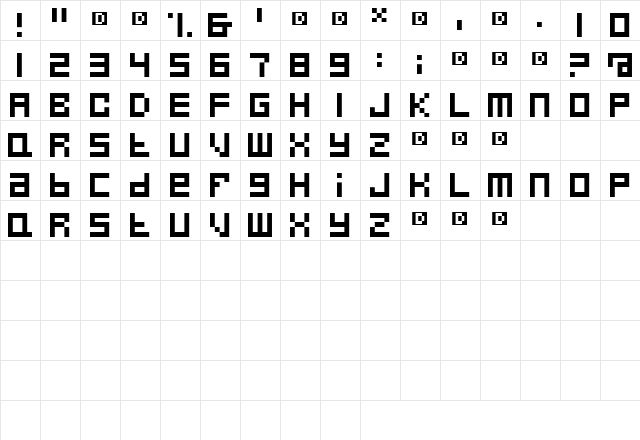
RadioRadio Regular Font Preview
RadioRadio Regular
Design Context for RadioRadio Typeface
RadioRadio is a composed and adaptable typeface that performs quietly and consistently across a wide range of design contexts.